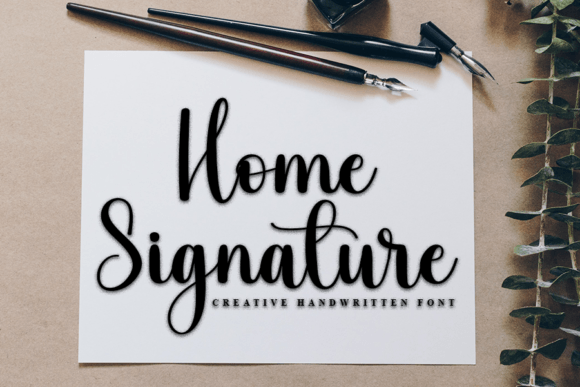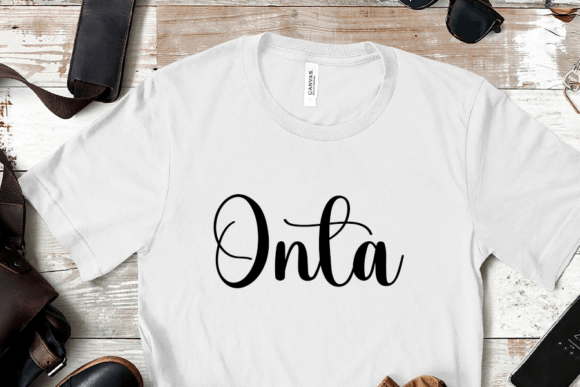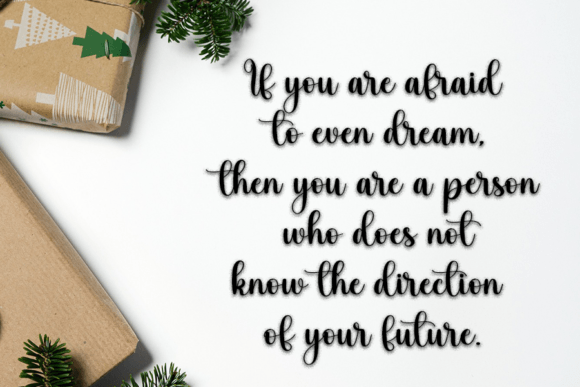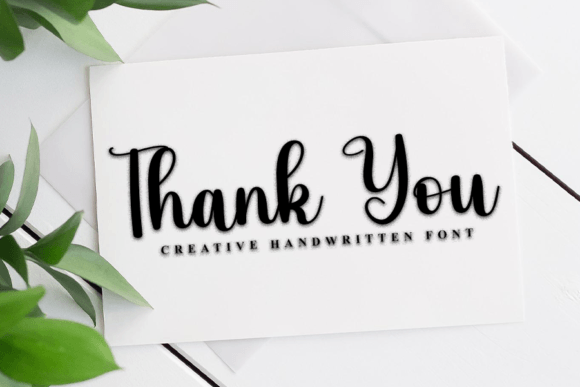
Introducing Hand Font: The Perfect Choice for Unique Designs
Are you a designer or crafter looking for a font that adds a personal touch to your work? Look no further than Hand Font, a delicate handwritten font carefully crafted for a cool and unique design. With its elegant and fluid strokes, Hand Font is perfect for a variety of projects, from writing letters and invitations to labeling food products and creating titles.
The Characteristics of Hand Font
Hand Font is a meticulously designed font that boasts a range of characteristics that make it stand out from other fonts. Its delicate and handwritten style gives it a personal and human touch, making it perfect for designs that require a more intimate and emotional connection with the audience. The font features:
- Elegant strokes: Hand Font’s strokes are fluid and elegant, giving it a sophisticated and refined look.
- Unique letterforms: Each letter in Hand Font has its own unique shape and character, making it perfect for designs that require a high level of customization.
- High legibility: Despite its delicate nature, Hand Font is highly legible, making it perfect for use in a variety of contexts, from body text to headings.
Use Cases for Hand Font
Hand Font’s versatility makes it perfect for a wide range of design projects. Here are some use cases to get you started:
- Invitations and greeting cards: Add a personal touch to your invitations and greeting cards with Hand Font’s elegant and delicate style.
- Food labels and packaging: Use Hand Font to add a touch of sophistication and elegance to your food labels and packaging.
- Letter writing: Hand Font is perfect for writing letters, whether it’s a personal letter to a friend or a formal letter to a client.
- Titles and headings: Use Hand Font to create eye-catching titles and headings for your blog posts, articles, and other written content.
- Branding and marketing materials: Hand Font can be used to create unique and memorable branding and marketing materials, such as business cards, brochures, and flyers.
Tips for Using Hand Font Effectively
To get the most out of Hand Font, here are some tips to keep in mind:
- Use it sparingly: Hand Font is best used sparingly, as too much of it can be overwhelming. Use it for headings, titles, or key phrases to add emphasis and create visual interest.
- Pair it with other fonts: Hand Font pairs well with other fonts, such as sans-serif fonts like Arial or Helvetica. Experiment with different pairings to find the one that works best for your design.
- Adjust the size and color: Hand Font looks best when it’s used in a size range of 10-24 points. Experiment with different sizes and colors to find the one that works best for your design.
Hand Font is a unique and versatile font that’s perfect for designers and crafters looking to add a personal touch to their work. With its elegant strokes, unique letterforms, and high legibility, Hand Font is perfect for a wide range of design projects, from invitations and food labels to letter writing and titles. By following the tips outlined above, you can use Hand Font to create beautiful and effective designs that stand out from the crowd.